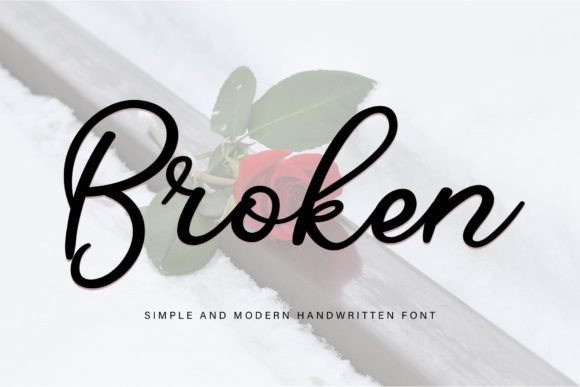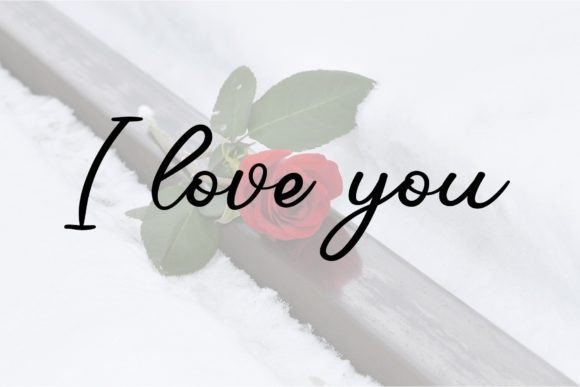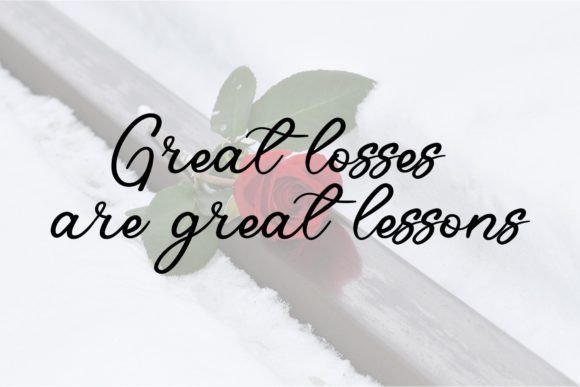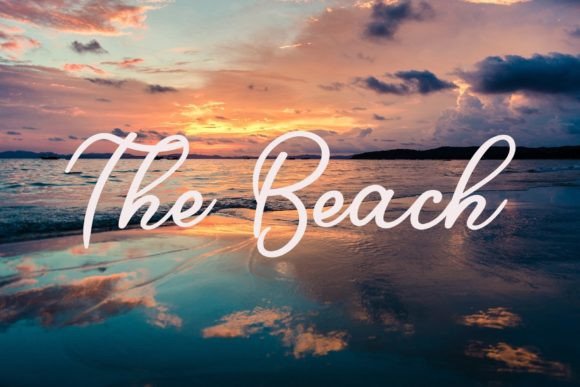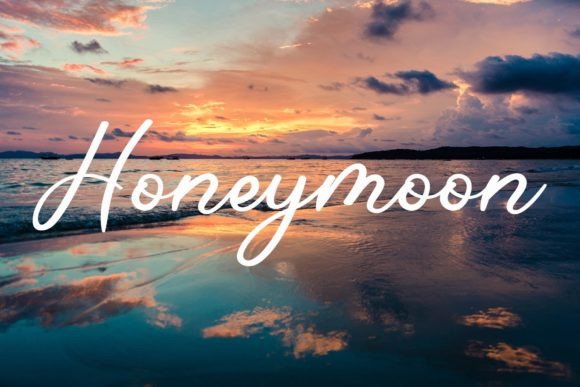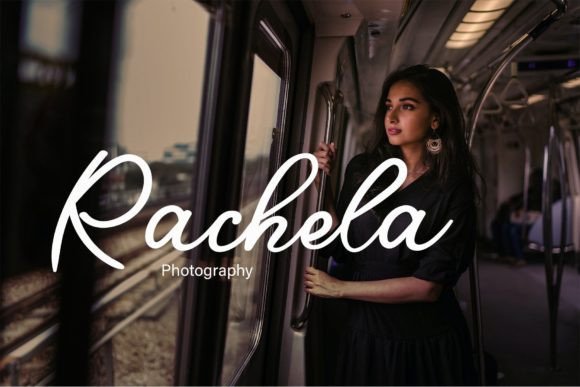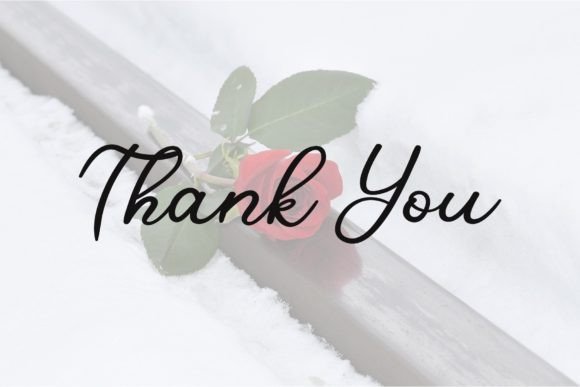
Broken Font
About Broken Font
“Broken” is a playful and friendly handwritten font that adds a touch of fun and creativity to any design. With its distinctive charm, this font has the power to transform ordinary ideas into true standouts, infusing a sense of uniqueness and character into your projects.
The whimsical nature of “Broken” makes it a perfect choice for a variety of creative endeavors. Whether you’re working on digital designs, print materials, or any other project that requires a lighthearted and approachable feel, this font can bring a sense of joy and playfulness.
Get inspired by the delightful and unique elements of “Broken” to create designs that stand out from the crowd. Its handwritten style adds an authentic touch, making it suitable for a range of applications, from social media graphics and advertisements to product packaging, labels, and more.
The fun and friendly aesthetic of “Broken” extends its versatility to various design scenarios. Let it inspire you to craft lovely and eye-catching designs that capture attention and leave a memorable impression. Whether you’re designing for personal projects, events, or branding, this font provides a creative and engaging touch.
Incorporate “Broken” into your design toolkit to unleash its unique charm and inject a sense of playfulness into your creative projects. It’s a font that encourages experimentation and creativity, allowing you to break away from the ordinary and infuse your designs with a dose of delightful personality.